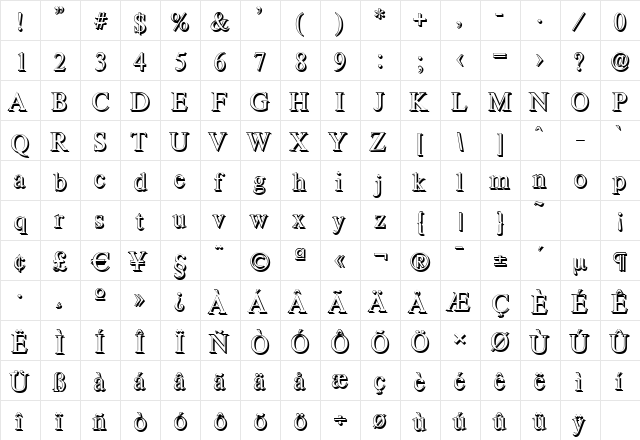
ThamesShadow Regular
Design Context for ThamesShadow Typeface
ThamesShadow brings ornamental detail and strong personality to headlines and identities, where visual impact matters more than quiet functionality.
Font Pairing: Pair with a clean neutral sans-serif for body copy to let ThamesShadow's character lead without overwhelming the composition.
Pro Tip: Use ThamesShadow exclusively at display sizes — it was designed to be seen, not read at length. Let a neutral companion handle body copy.